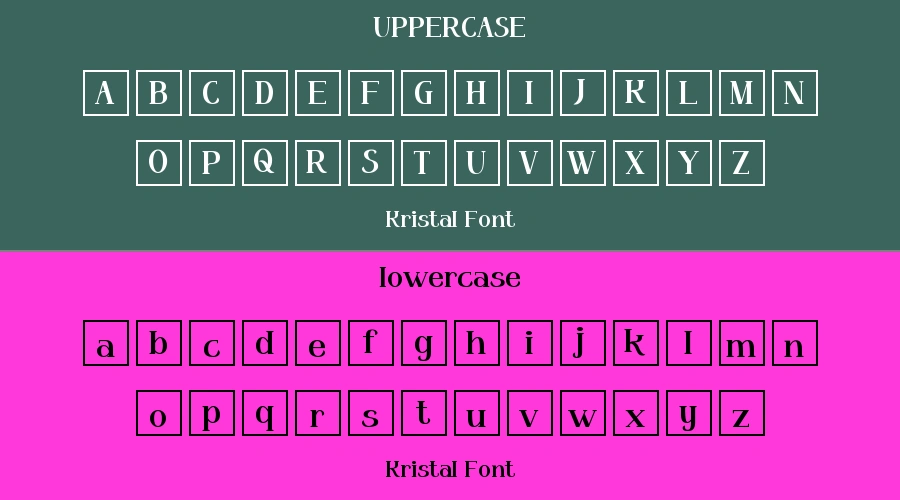
About Kristal Font
Kristal Font represents a sophisticated approach to type design, balancing expressive energy with precision. Perfect for merchandise graphics, this font family showcases impressive clarity and brand power throughout its character set. Designers appreciate its versatility and reliability.
Designers will appreciate nuanced touches including graceful curves and terminal forms, adding sophistication to any project. These features become apparent in hero imagery, where scanning accuracy matters most. The careful treatment of joint detail and professional recognition ensures optimal performance.